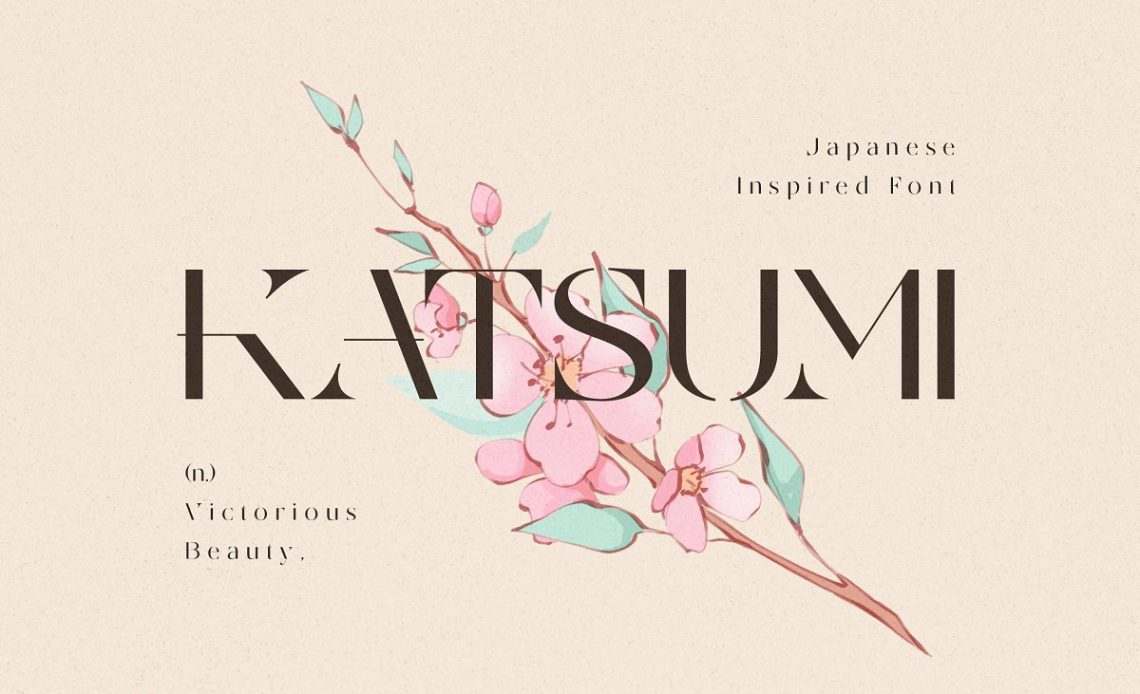
Looking for a font that embodies the essence of Japanese beauty? Look no further than Katsumi - Japanese Font! Designed by the talented StevanusGerald Lengkey, this exquisite serif typeface takes inspiration from hiragana and its name, which means "victorious beauty", perfectly captures its aesthetic.
With alternates and ligatures available, Katsumi offers endless possibilities for your next project. Whether you're creating a Japanese-themed brand, a stunning movie title, an eye-catching restaurant menu, or stylish product labels, Katsumi has got you covered.
Katsumi is more than just a font - it's a work of art that will elevate your designs to the next level. Its elegant curves and beautiful strokes will capture your audience's attention and leave a lasting impression. So why wait? Download Katsumi - Japanese Font today and start creating beautiful designs that inspire and captivate!